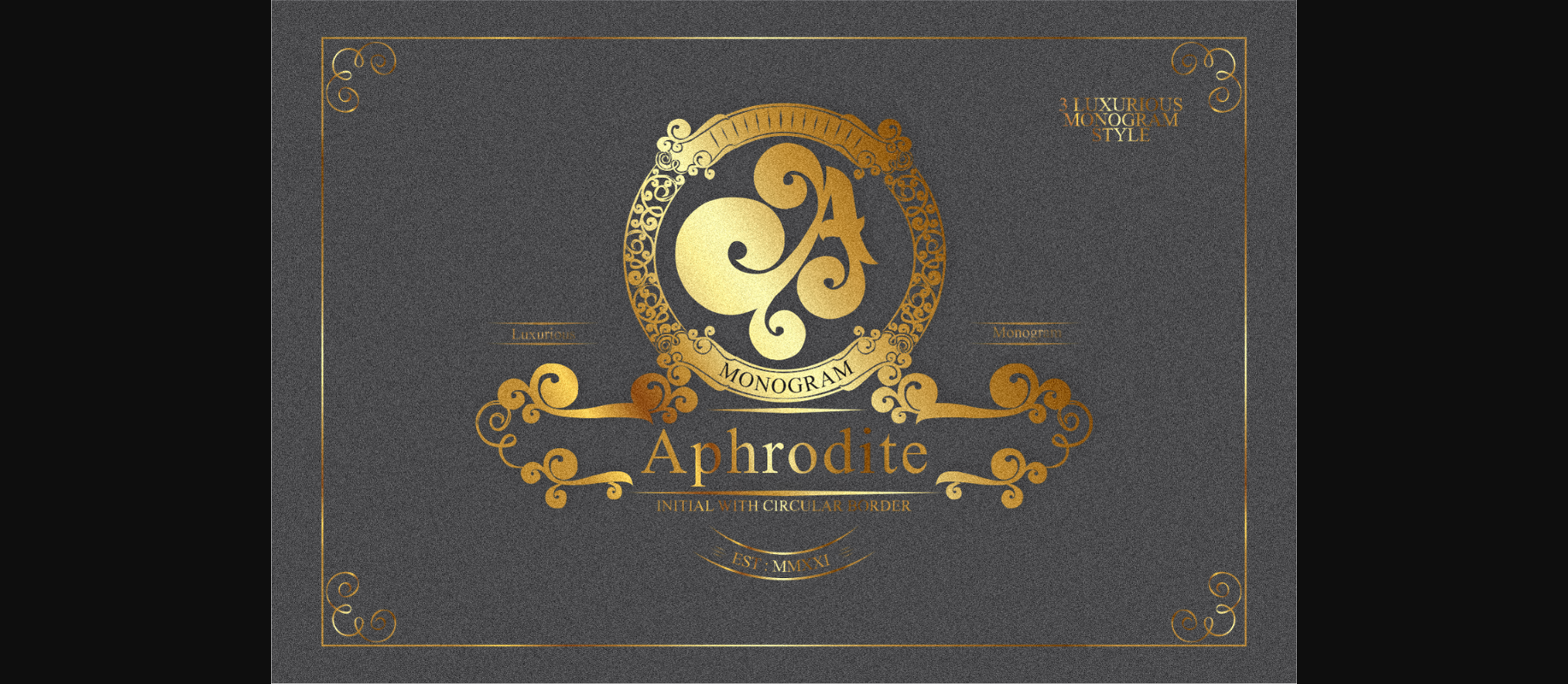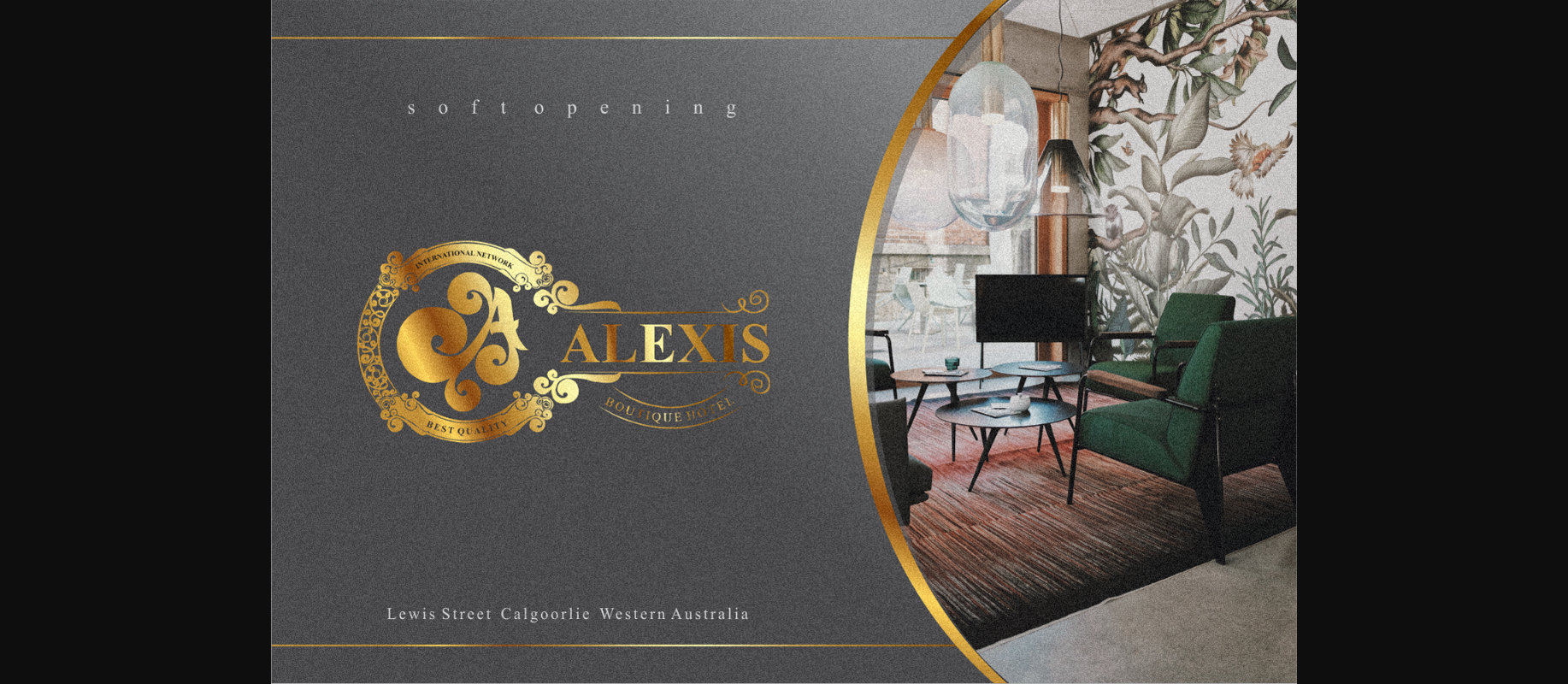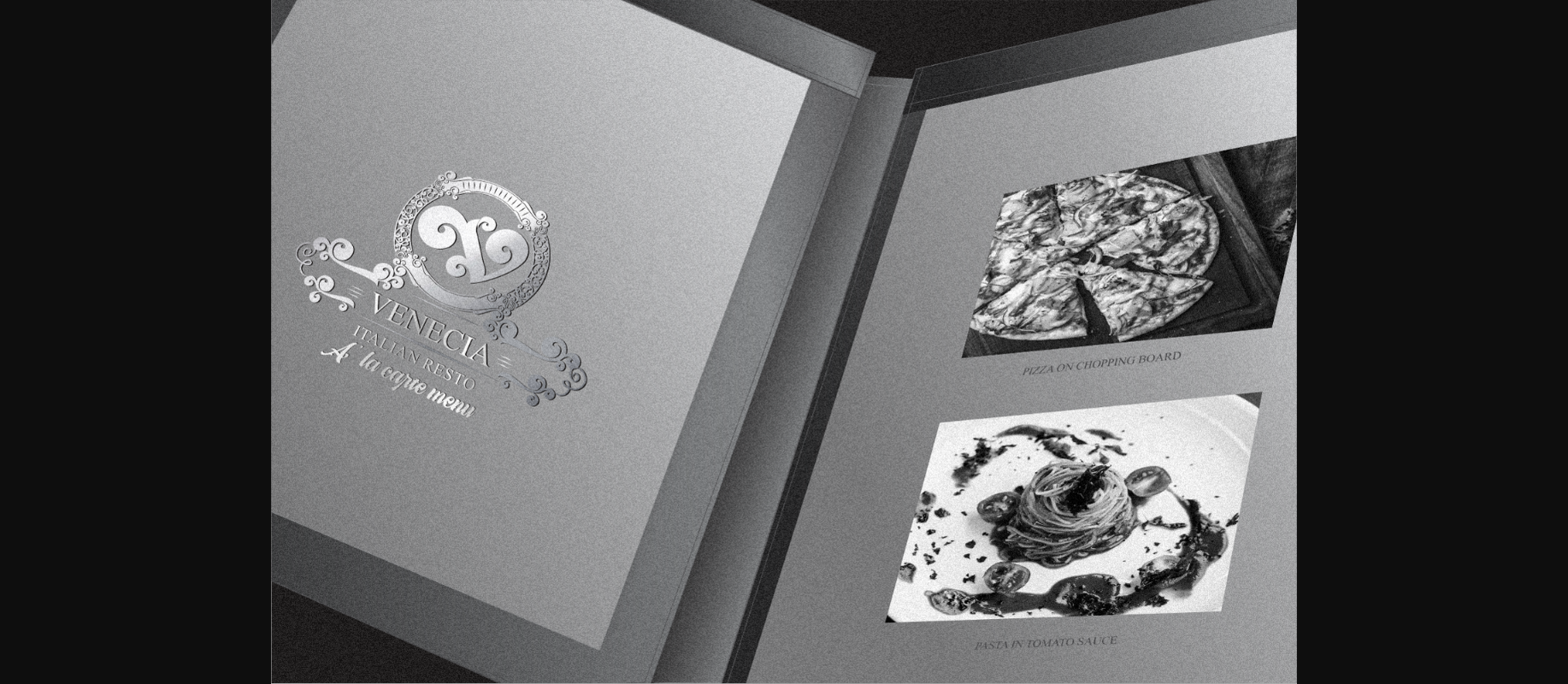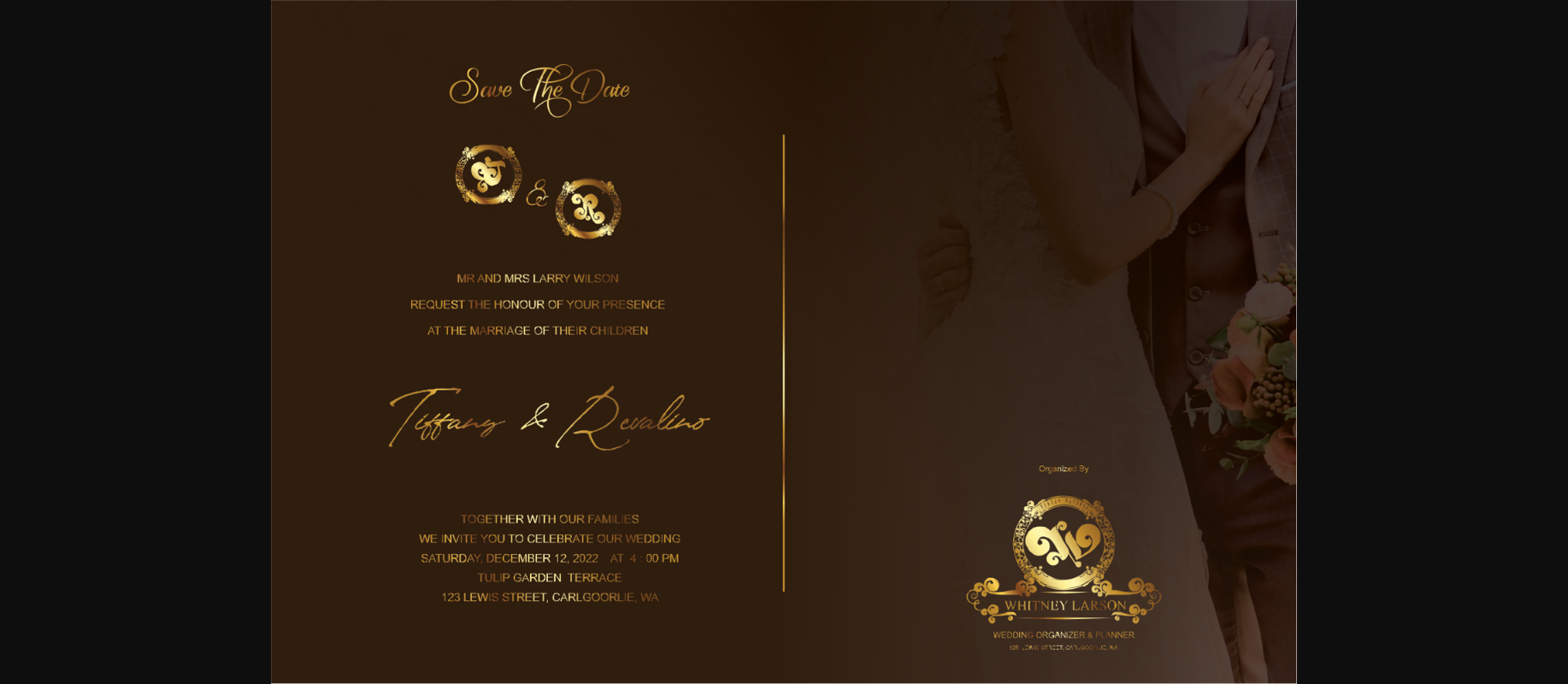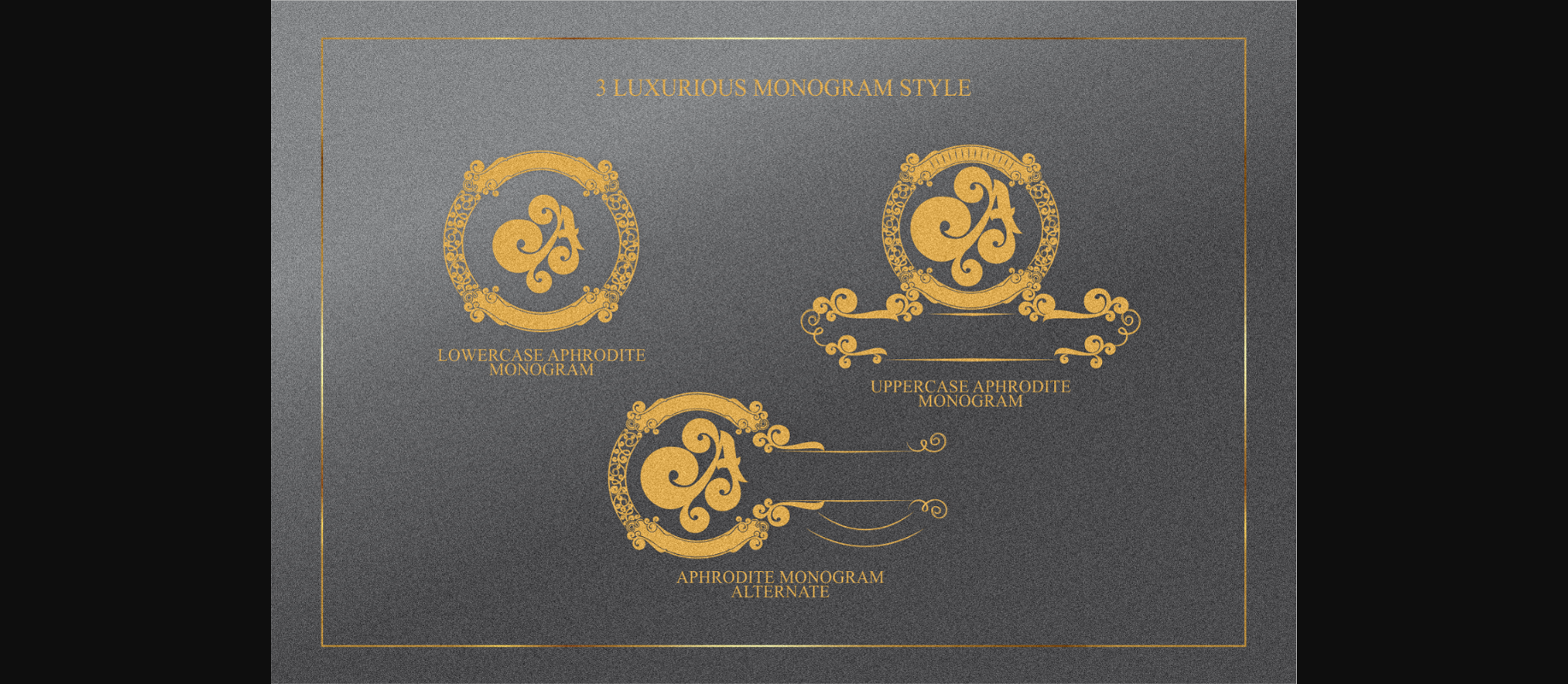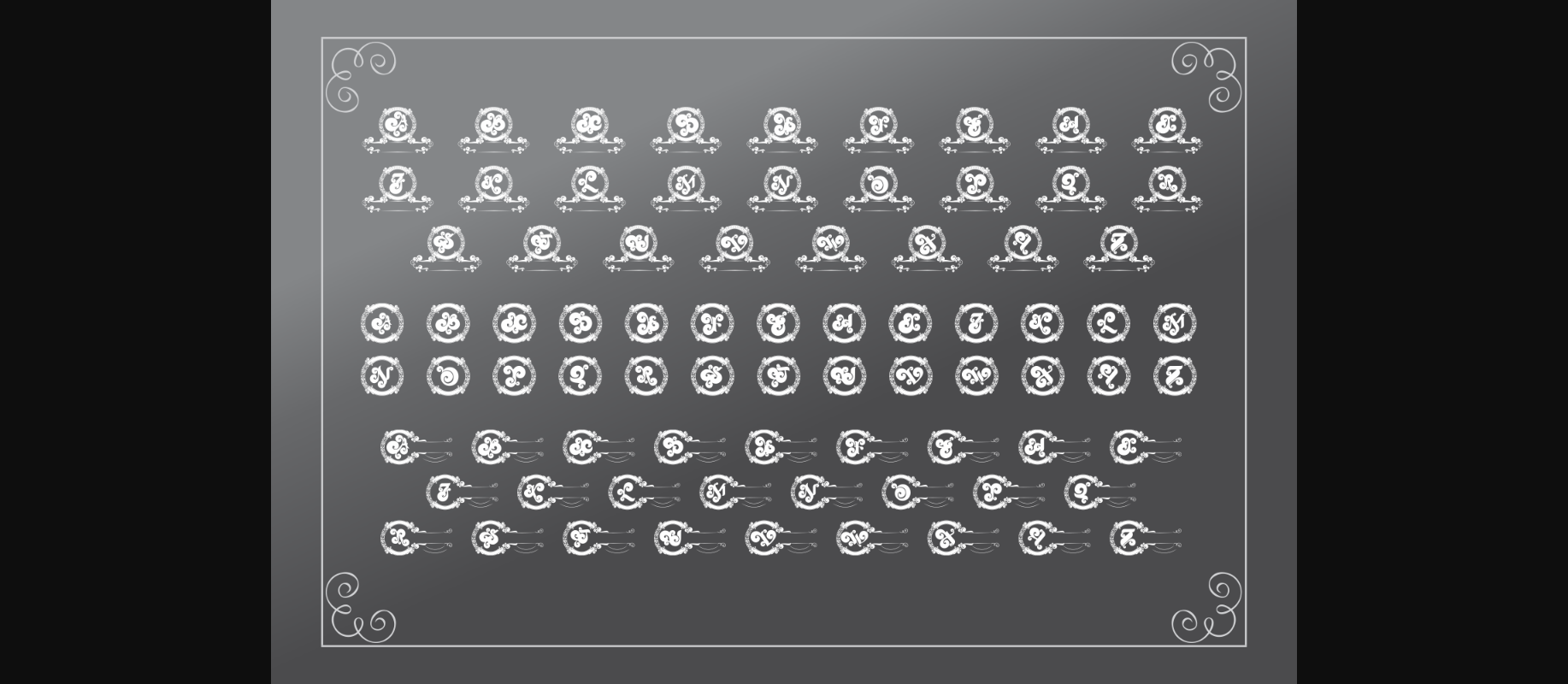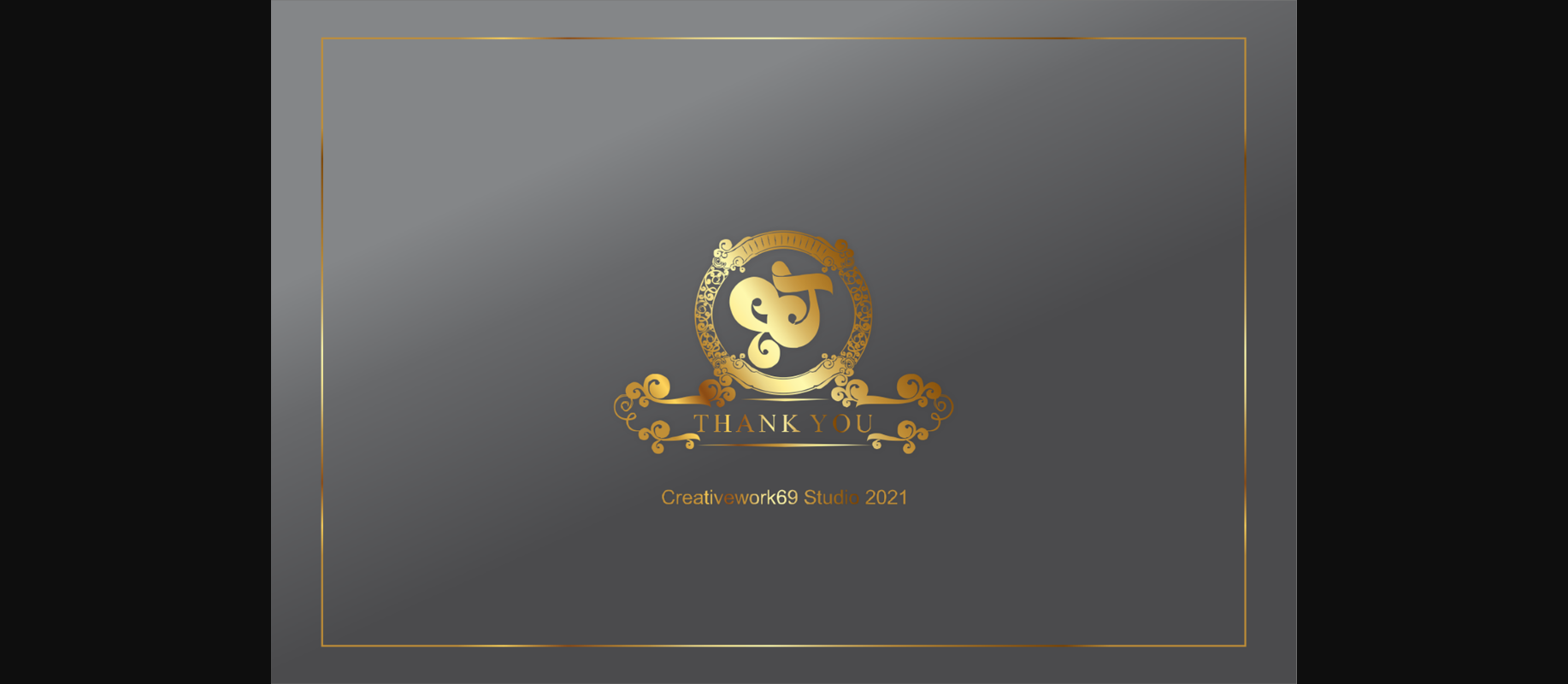
Aphrodite Monogram Font
About Aphrodite Monogram Font
Aphrodite Monogram is a bold and thick lettered decorative font. Whether you’re using it for crafts, digital design, presentations, or making greeting cards, this font has the potential to become your favorite go-to font, no matter the occasion!